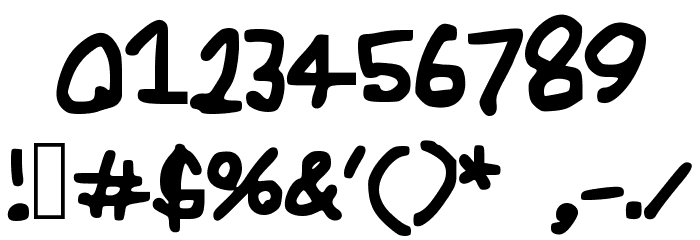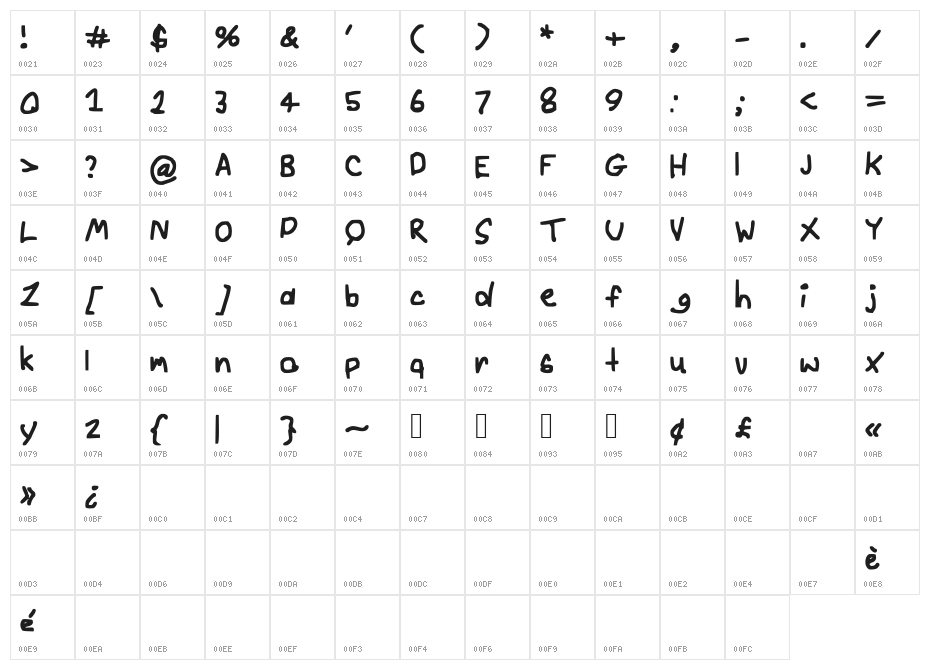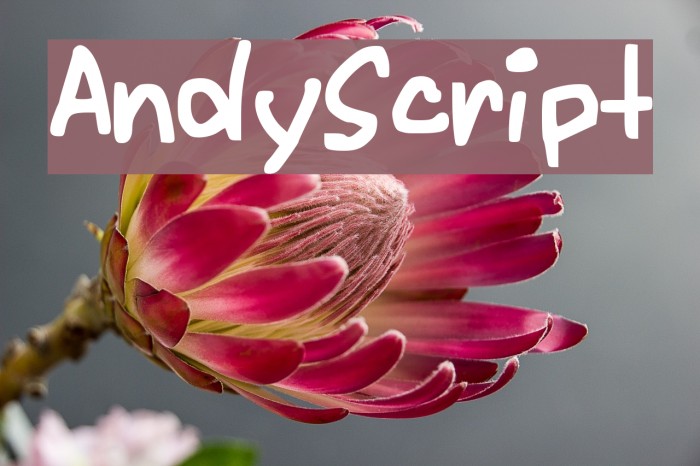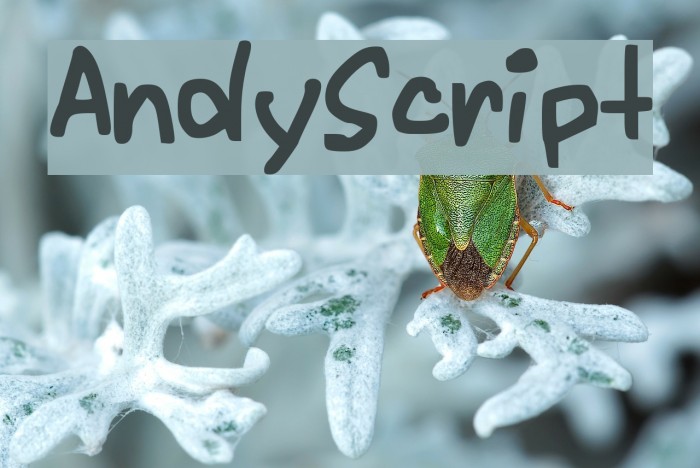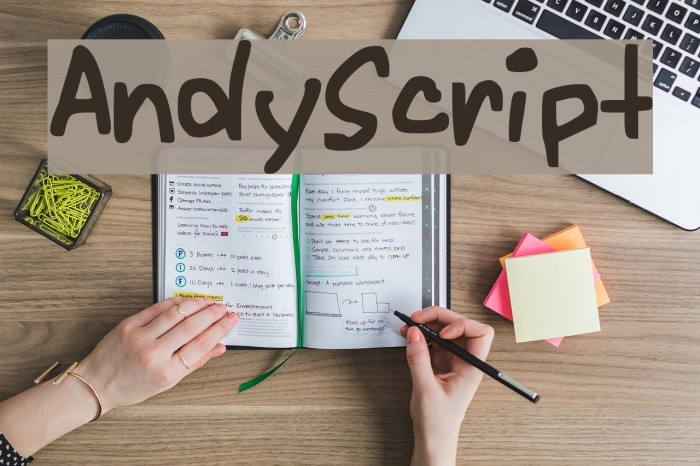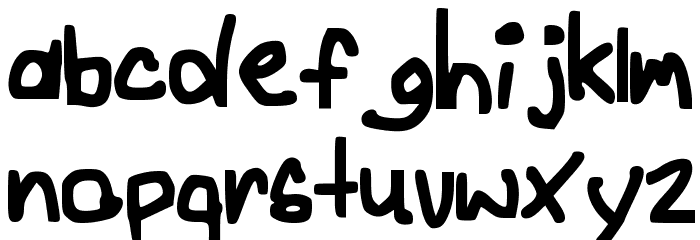
AndyScript Font
AndyScript Description
This font features a playful and informal handwritten style, characterized by its bold and rounded letterforms. The strokes are uneven, giving it a casual and friendly appearance. The uppercase and lowercase letters maintain a consistent style, with a slightly exaggerated width that enhances readability. The numerals and special characters follow the same design principles, ensuring a cohesive look across all characters. This font's unique charm makes it suitable for projects that require a personal touch or a fun, approachable aesthetic.